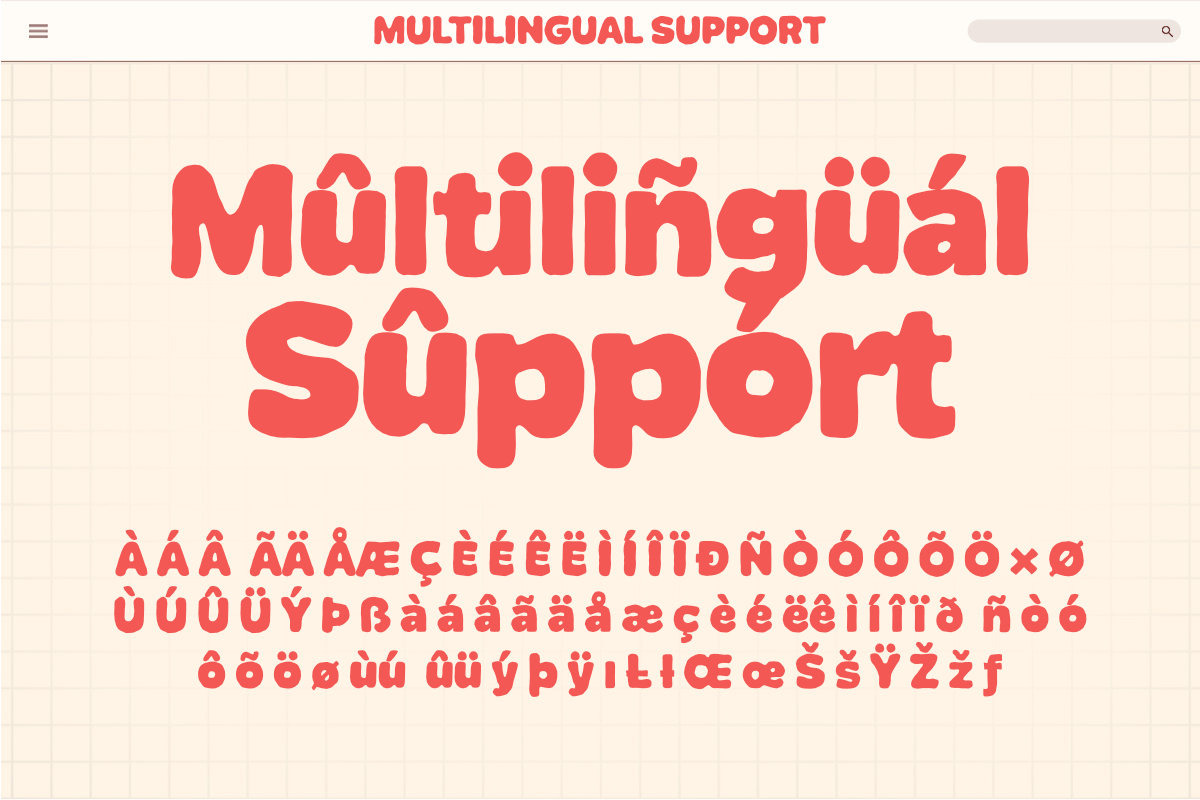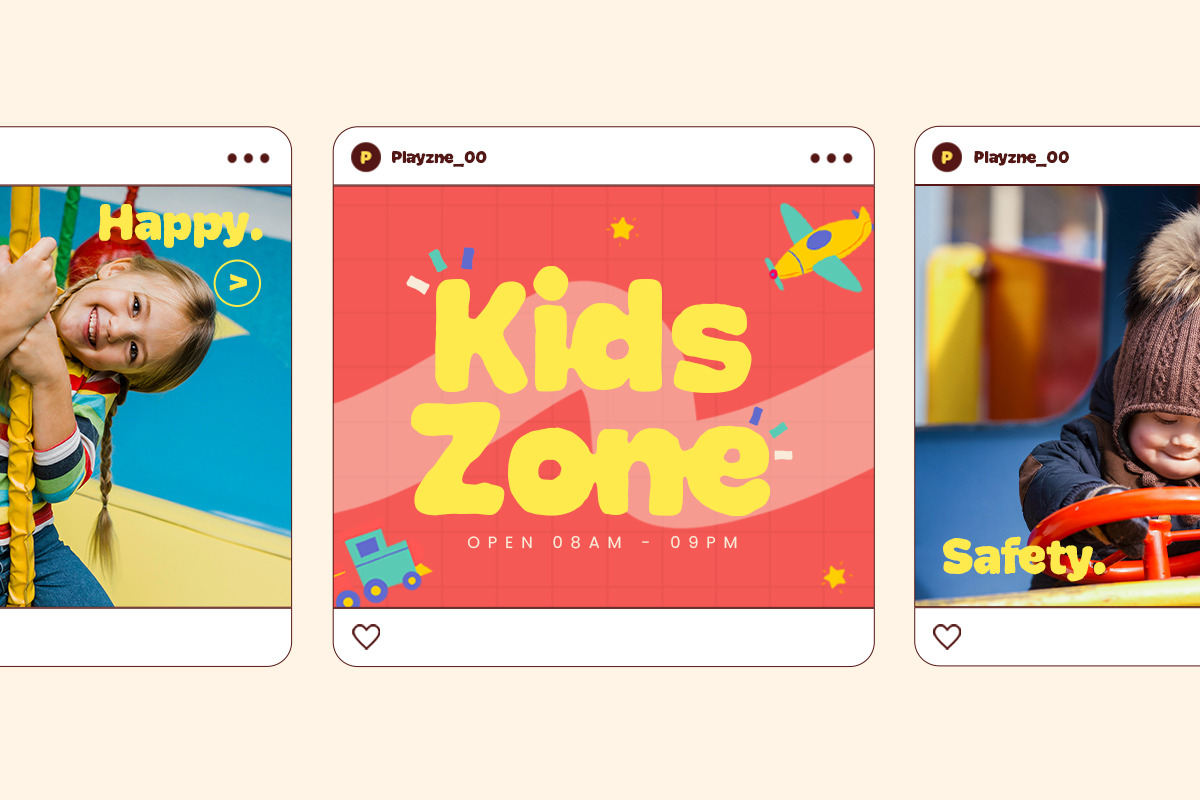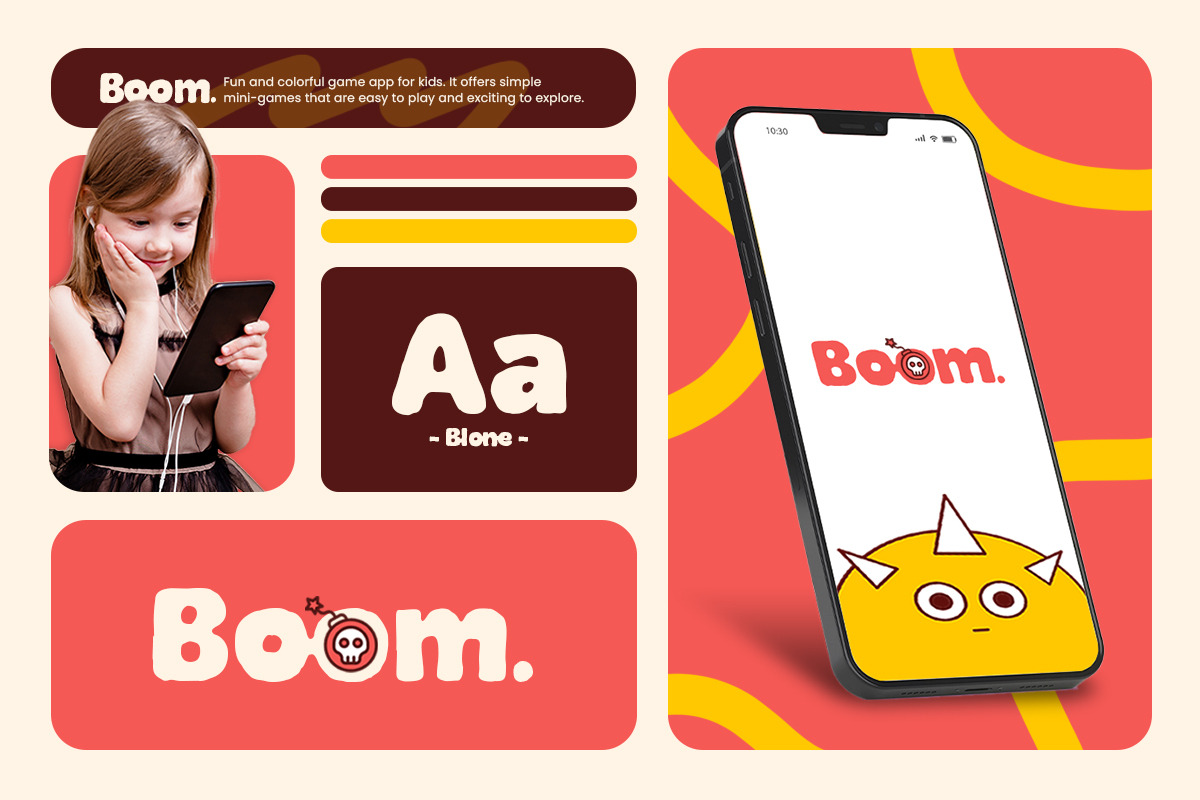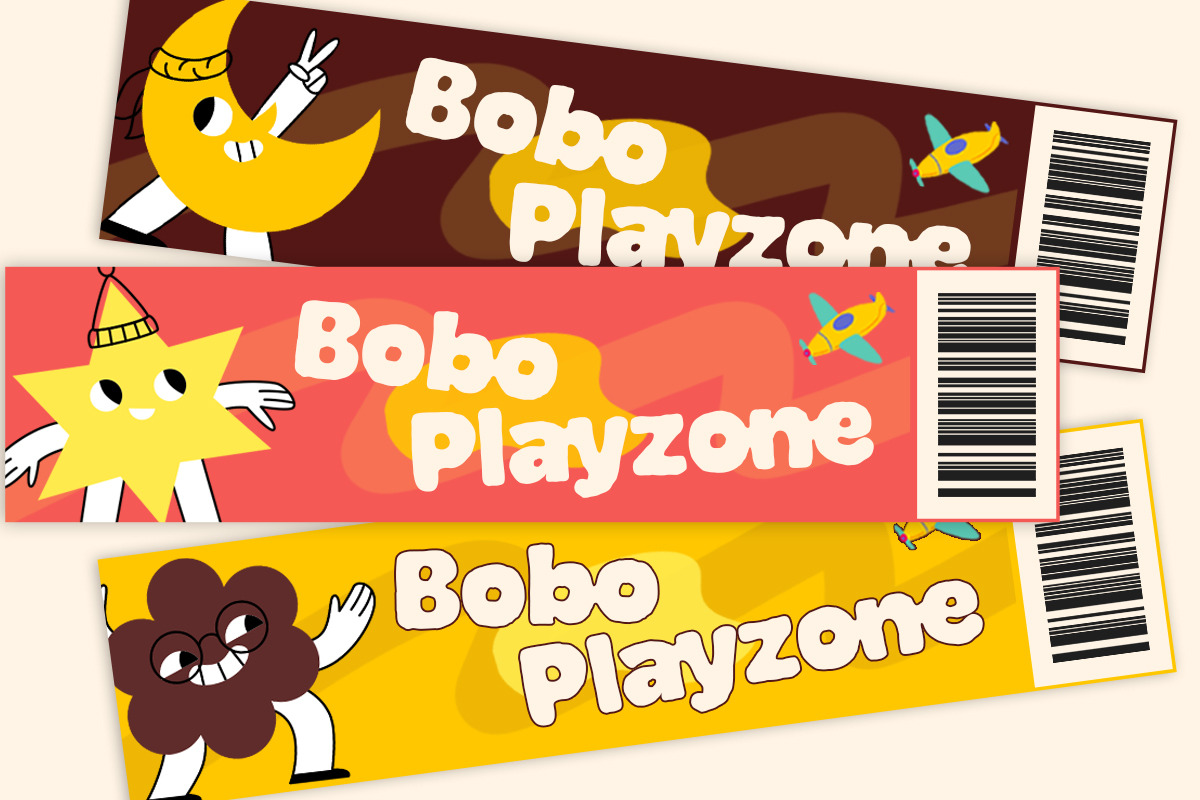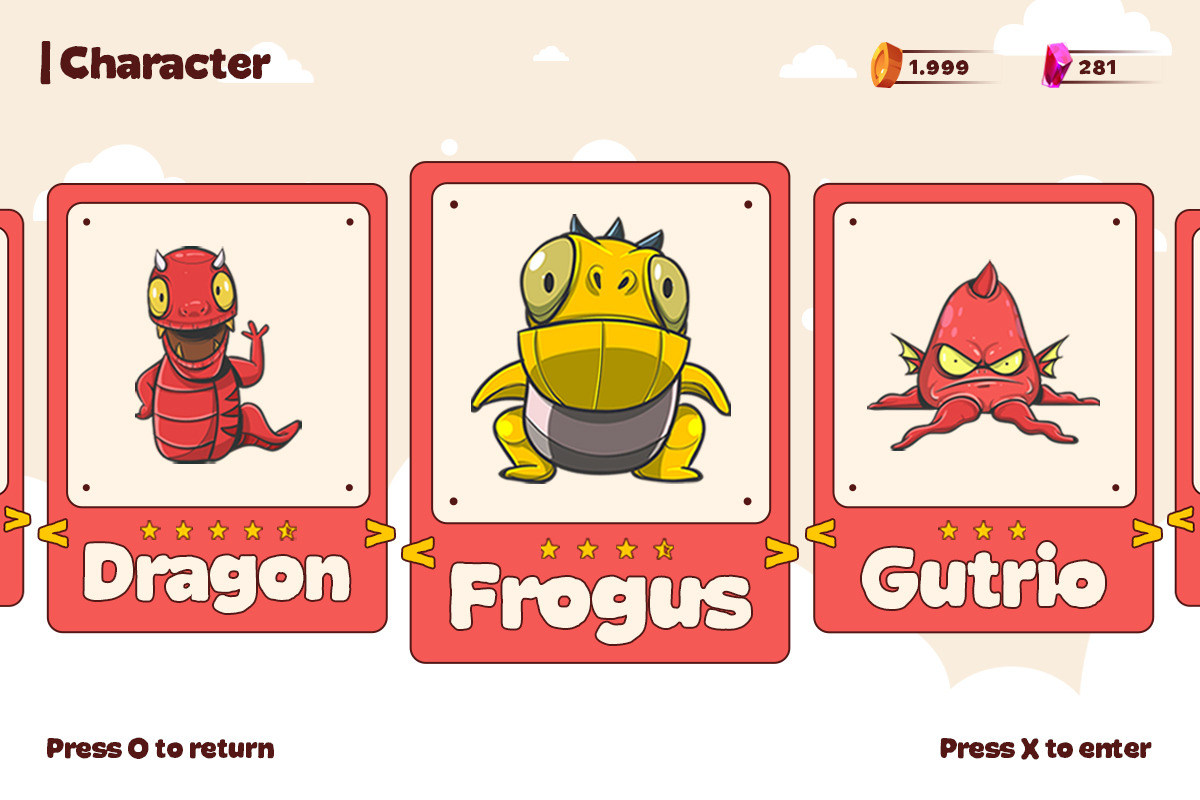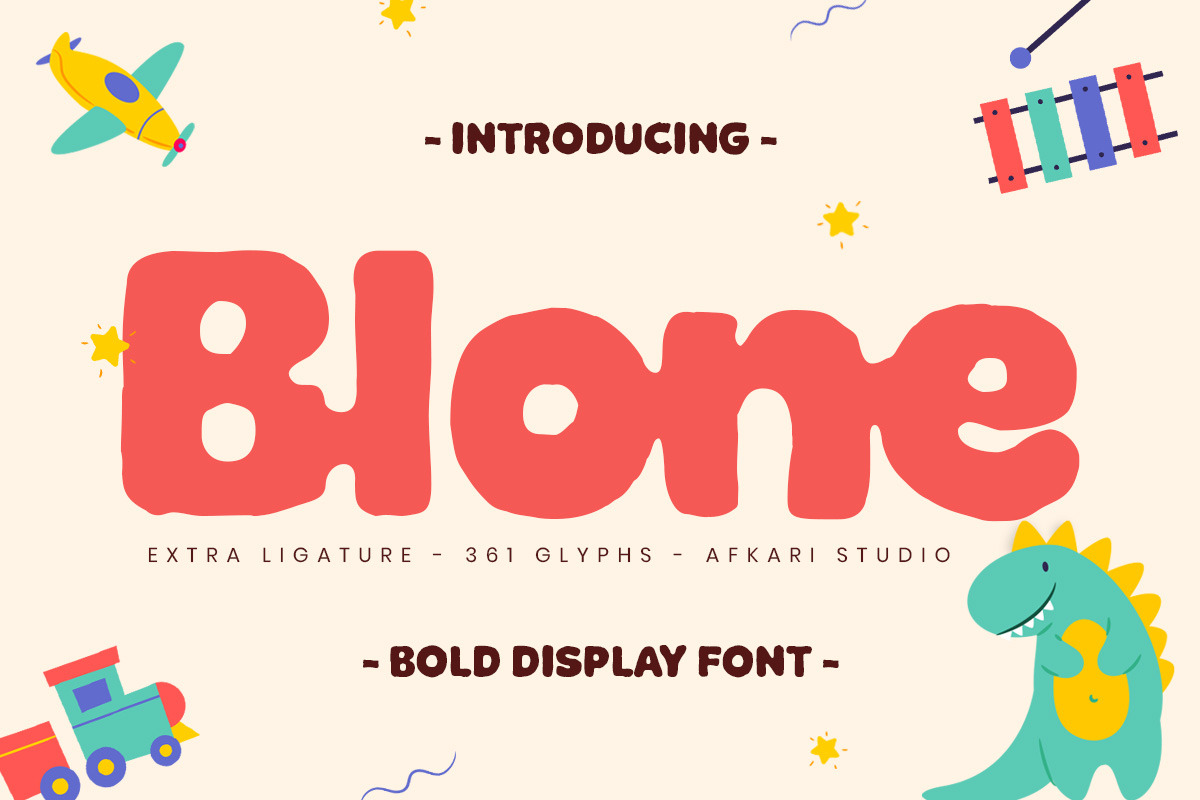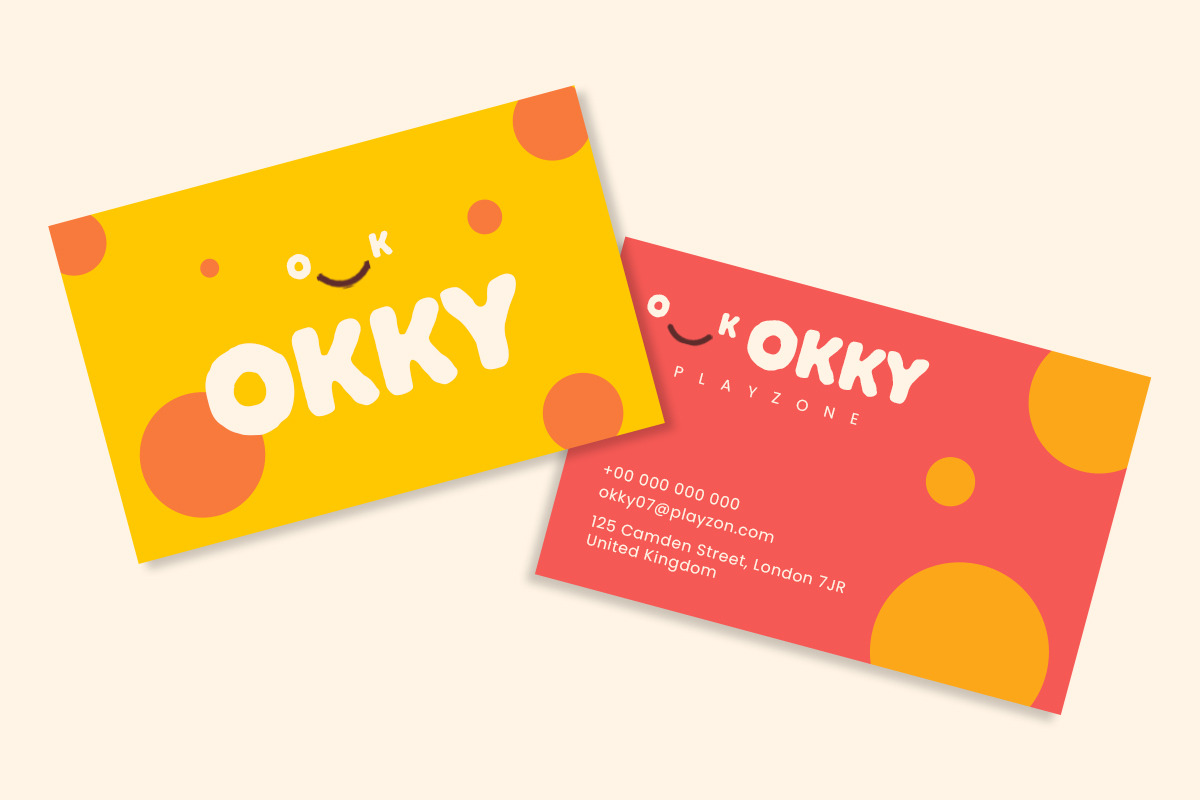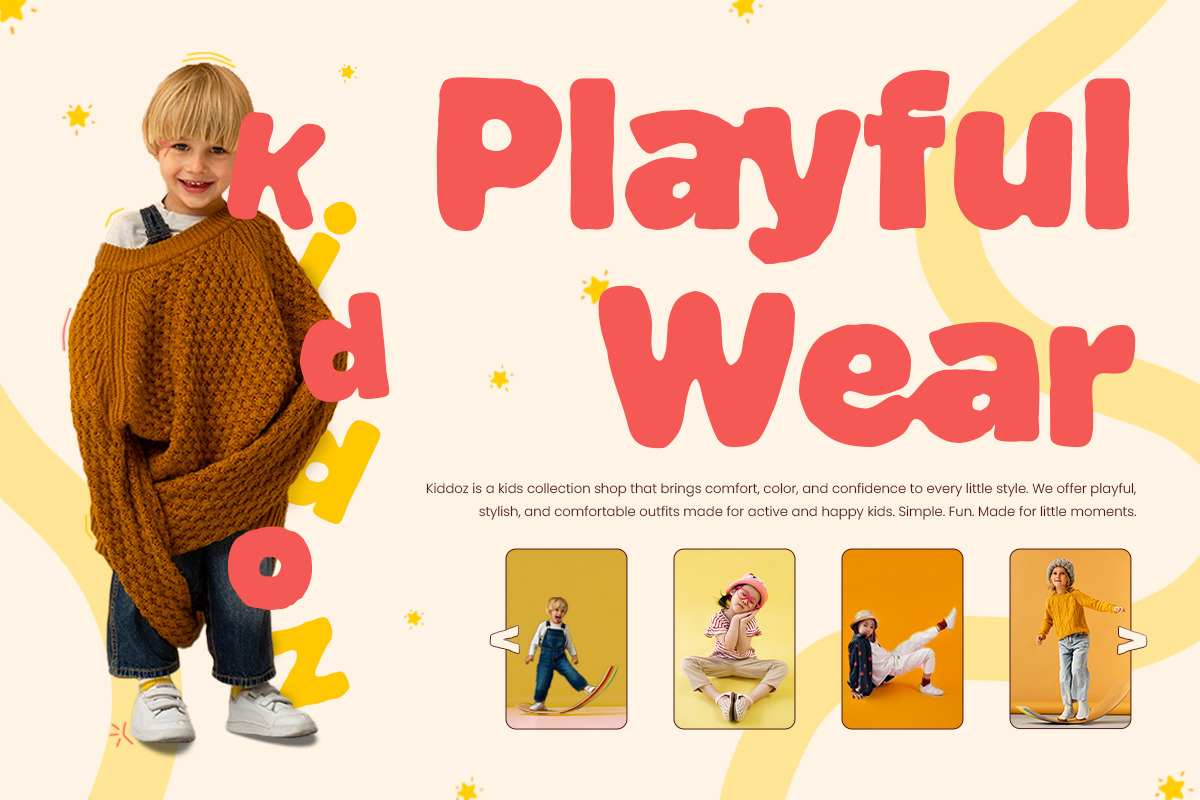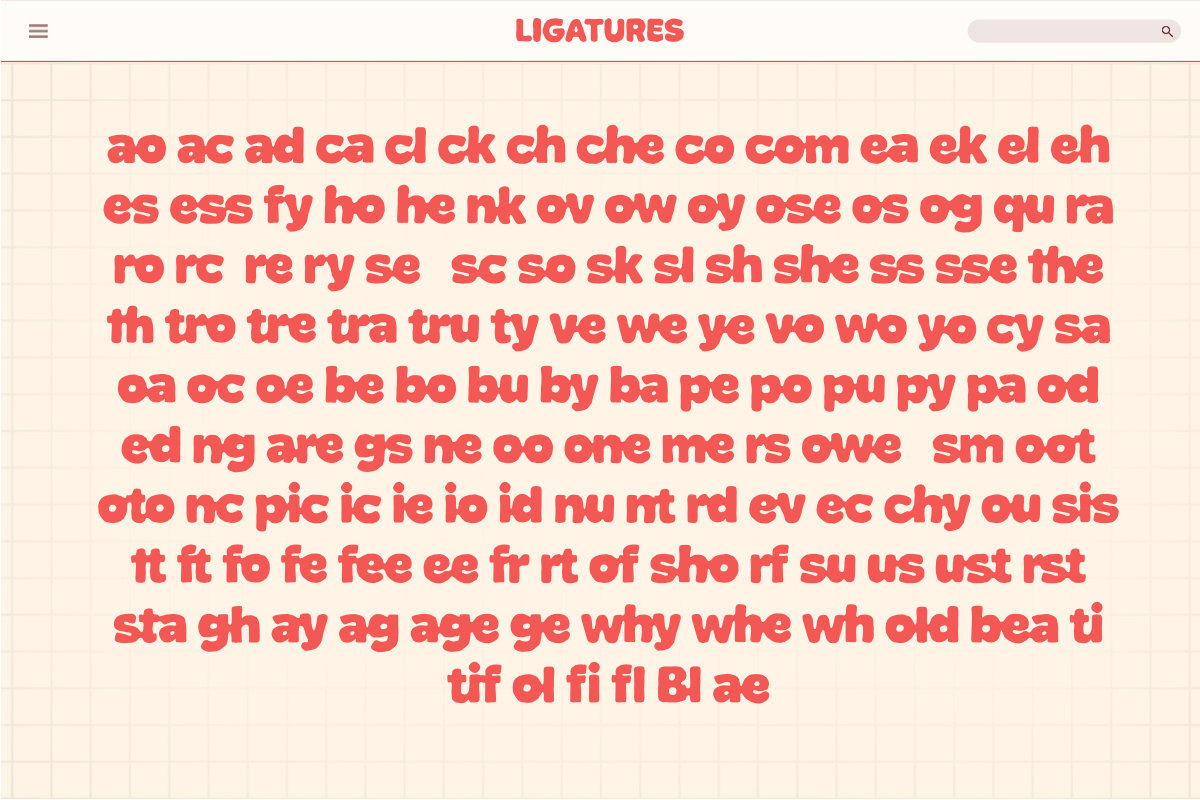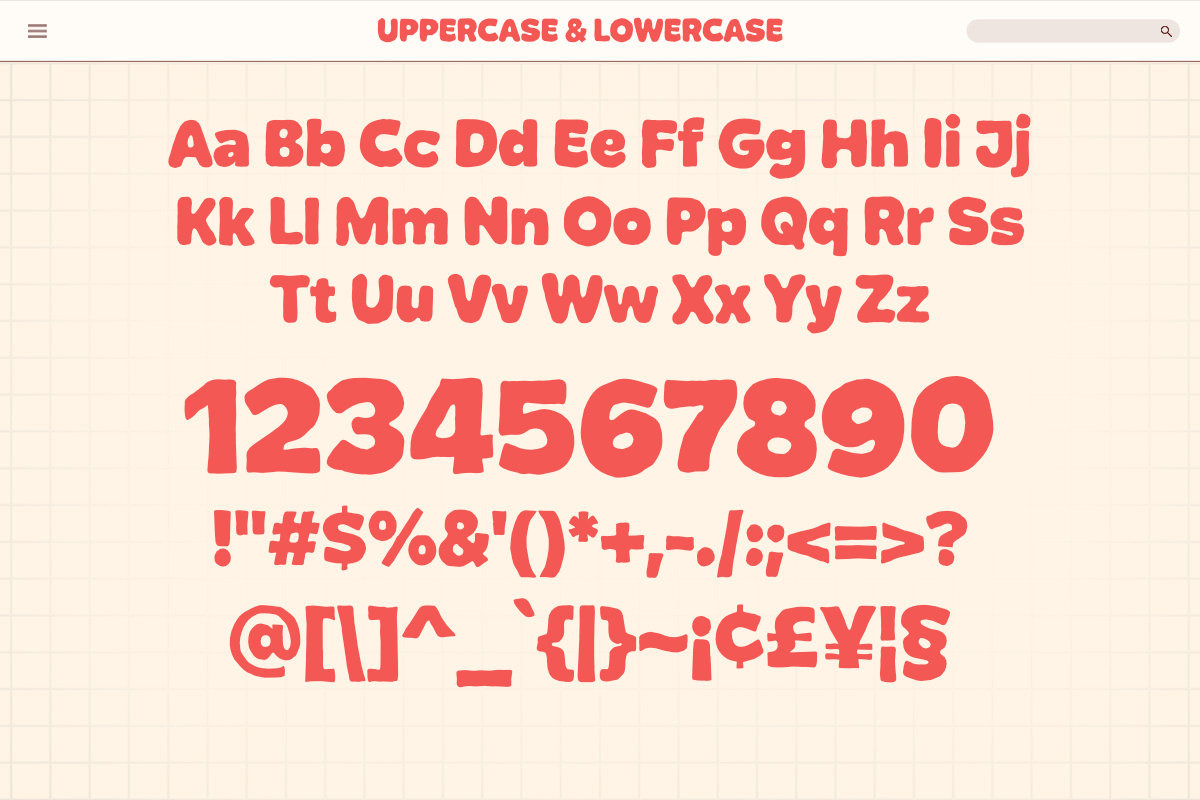
Blone - Bold Display Font
Blone is a powerful bold display font crafted to make a strong and confident visual statement. Designed with thick letterforms, solid structure, and modern proportions, Blone delivers high-impact typography that instantly grabs attention. Its bold personality makes it the perfect choice for designers who want their headlines to stand out clearly and memorably.
This bold display font is ideal for branding, logo design, posters, packaging, apparel, merchandise, YouTube thumbnails, gaming graphics, sports designs, and social media content. The strong geometric construction combined with clean edges ensures excellent readability, even at large sizes. Blone is built to dominate layouts while remaining professional and versatile.
Whether you’re designing a bold brand identity, streetwear logo, modern advertising campaign, or eye-catching editorial headline, this font gives your typography a fearless and energetic look.
Highlighted Features:
- Uppercase, Lowercase, Number, and Punctuation
- Special alternates and ligatures
If you’re looking for a bold display font that combines strength, clarity, and modern style, Blone is ready to elevate your next creative project.